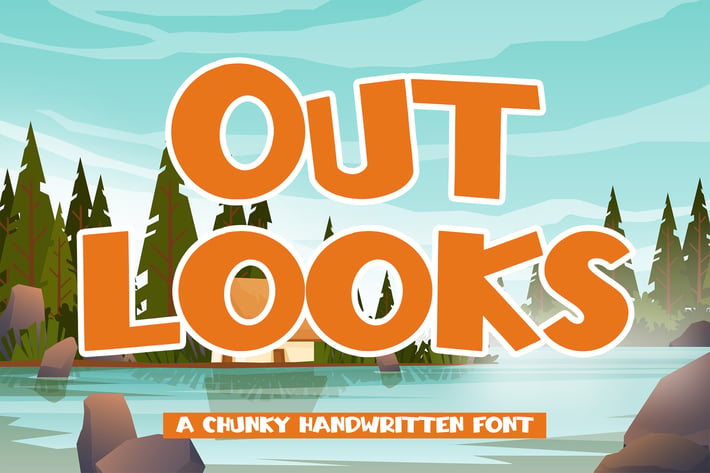
Outlooks - Chunky Handwritten Font
Outlooks - Chunky Handwritten Font came with opentype features such stylistic alternates, stylistic sets & ligatures good for logotype, poster, badge, book cover, tshirt design, packaging and any more.